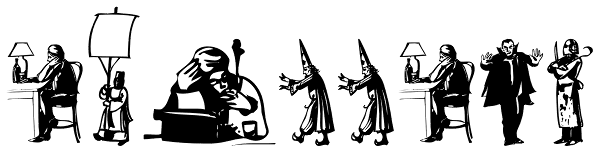
Bizarries
This series, with 104 illustrations in three files, collects original ink drawings with absurdities, bizarre people, whimsical personalities and risky behaviors! There is a very peculiar sense of narrative in the sucession of characters, even if...
Bizarries 3
Bizarries 2
Bizarries 1